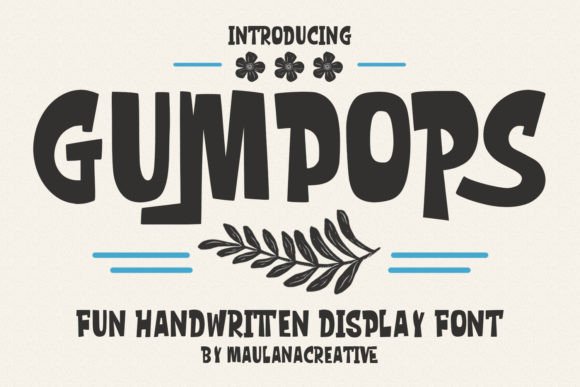
Brace yourself for a font adventure like no other with Gumpops Font, the captivating display font designed to ignite your creativity and leave a lasting impression on your audience. Crafted with meticulous care by Maulana Creative, this font is a symphony of charm and playfulness that will transform your designs into masterpieces.
Journey into the world of Gumpops Font, where every letter dances with a playful spirit, inviting you to embark on an artistic odyssey. This font is not just a collection of characters; it's a gateway to a realm of limitless possibilities, where your imagination takes center stage.
With Gumpops Font, you'll discover a font that effortlessly complements any topic or theme. Its inherent versatility makes it the perfect companion for sports websites, where its energetic vibe perfectly captures the thrill of competition. Unleash your passion for sports and let Gumpops Font carry your message to the world.
Step into the arena of creativity with Gumpops Font and witness the transformation of your designs. Its playful nature will add a touch of whimsy to your projects, while its inherent legibility ensures that your message remains clear and impactful. Elevate your designs to new heights and leave a lasting impression on your audience.
Gumpops Font is more than just a font; it's an expression of your individuality, a reflection of your unique style. Embrace the power of self-expression and let Gumpops Font be your artistic muse.
Don't settle for ordinary fonts that blend into the background. Choose Gumpops Font and embark on a creative journey where every design tells a story. Seize the opportunity to make a statement, to stand out from the crowd, and to leave an unforgettable mark on the world.